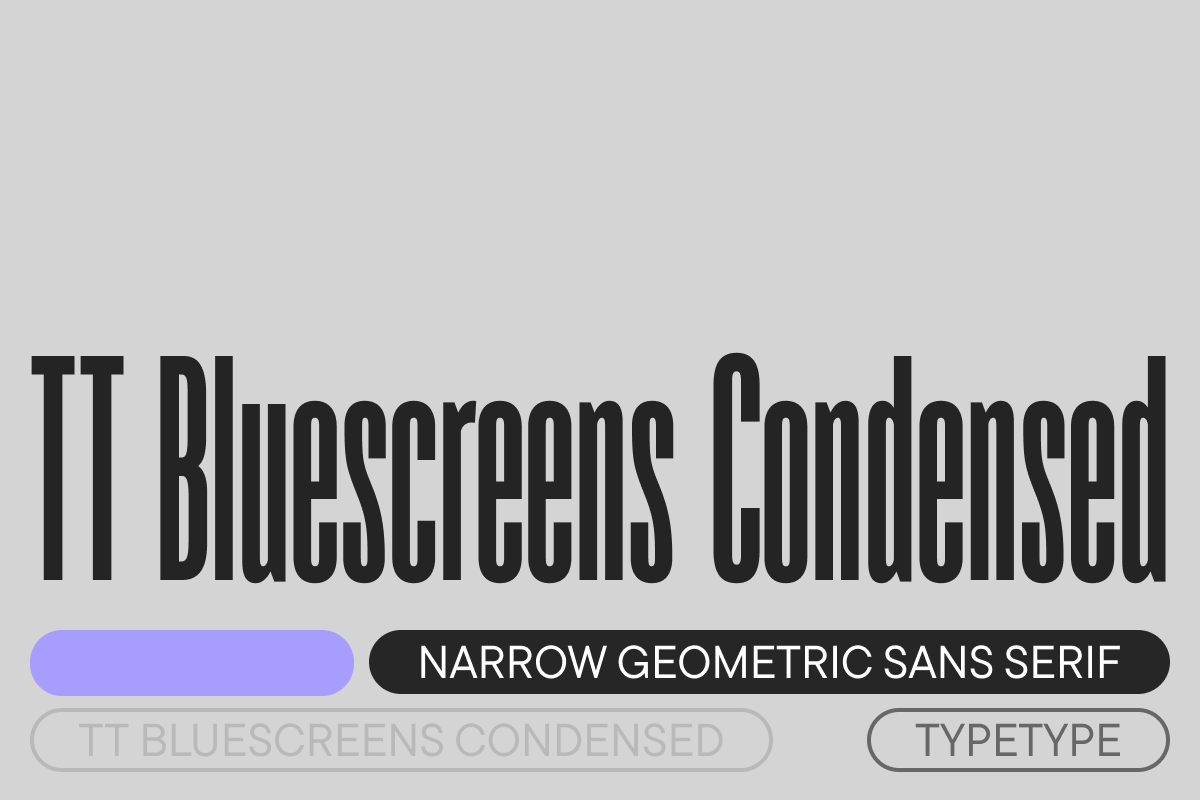
TT Bluescreens Condensed ExtraLight Italic
TT Bluescreens is a Neo-Grotesque typeface with narrow proportions and a calm, neutral yet distinctive character. This balance makes it highly versatile. The сondensed font styles are designed for unconventional design choices and stand out for their extremely narrow proportions. At medium sizes, the font gains texture and can serve as a visual accent. In large sizes, it appears unusual and expressive while preserving excellent readability, making it suitable for a range of design tasks.